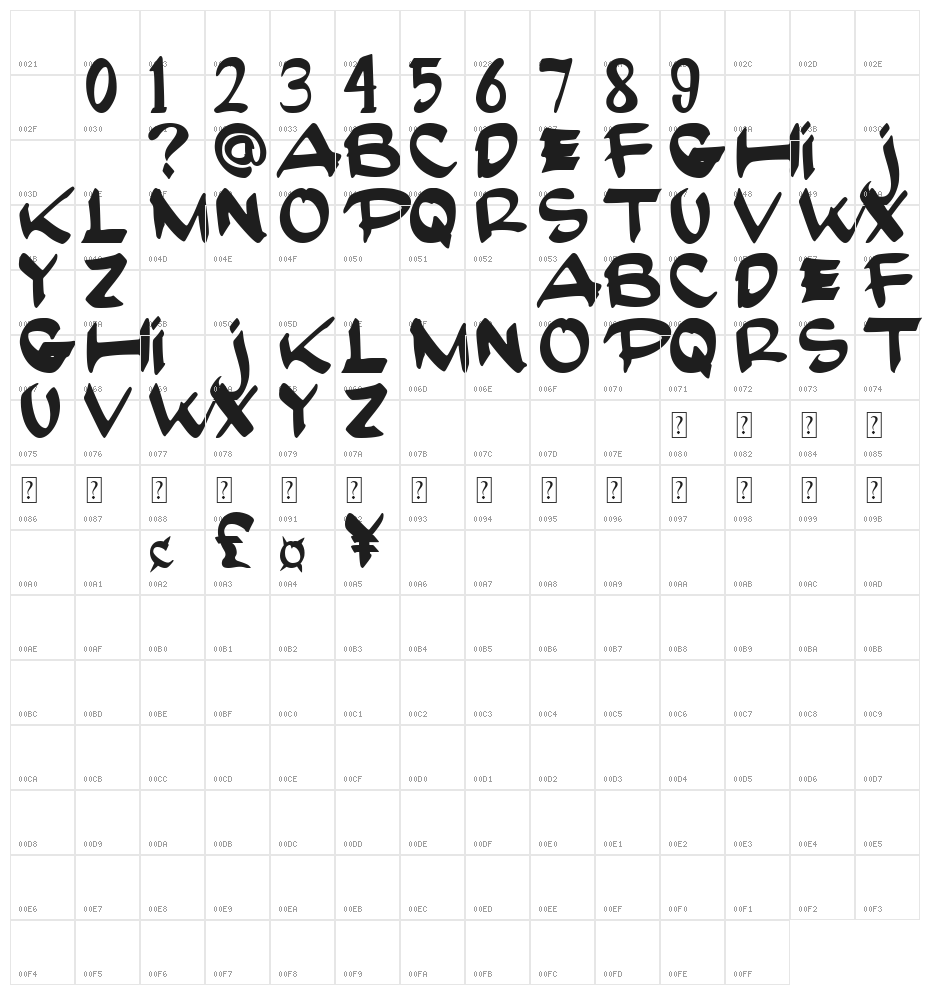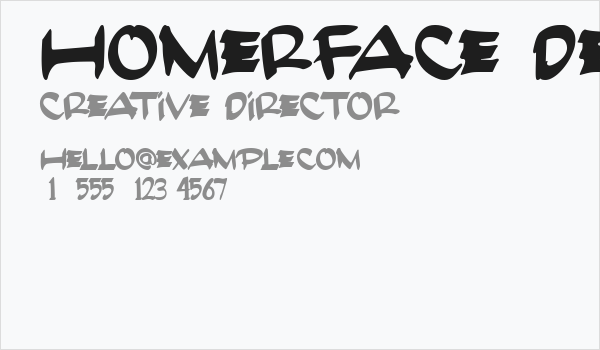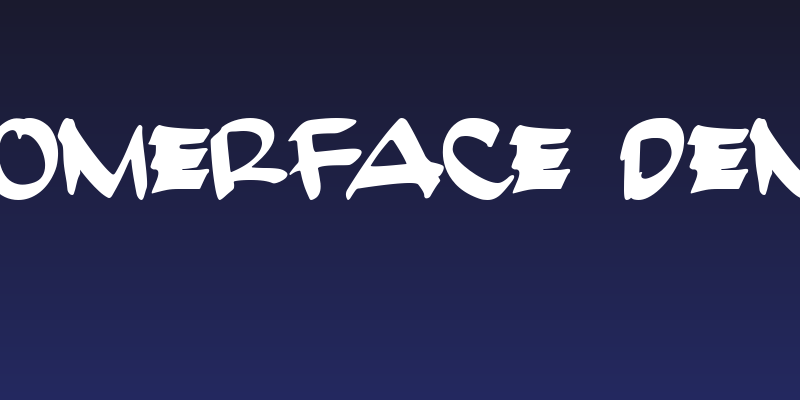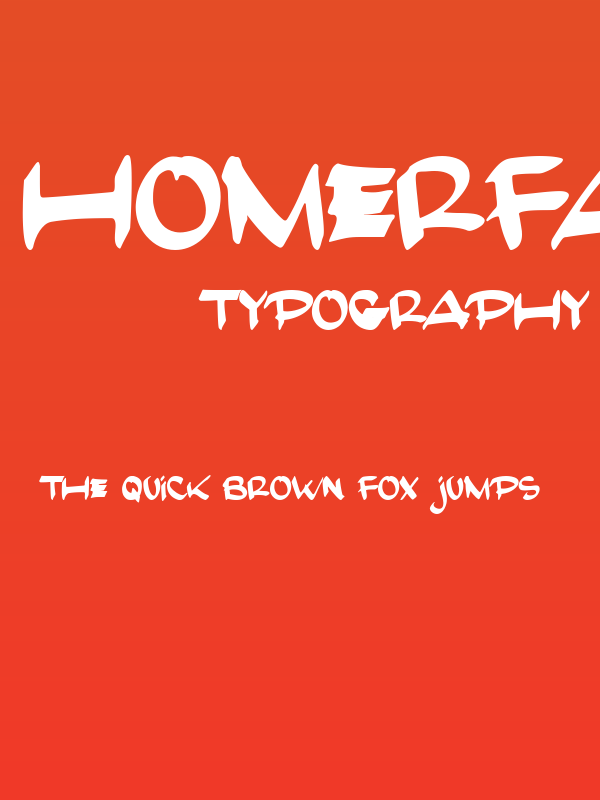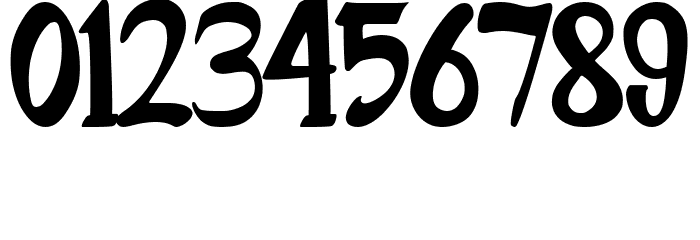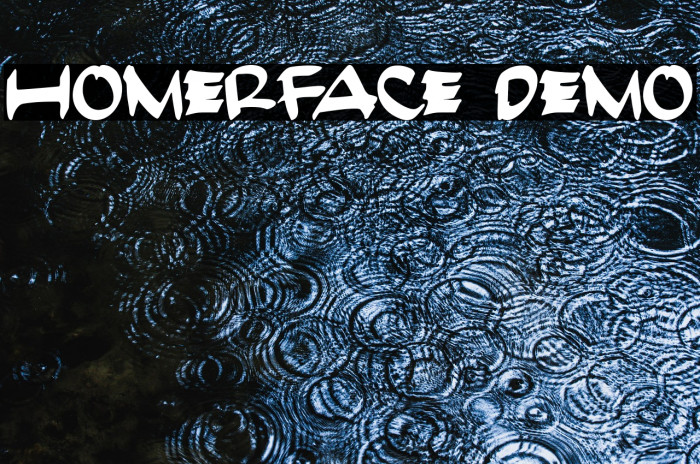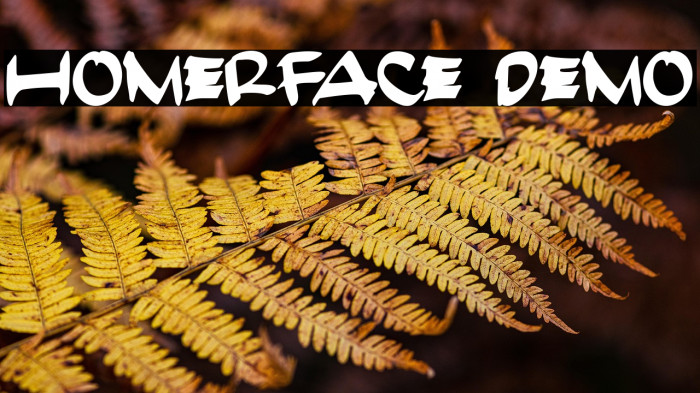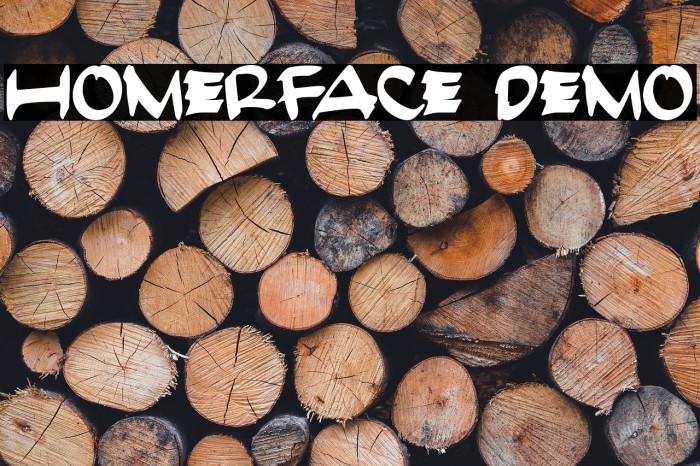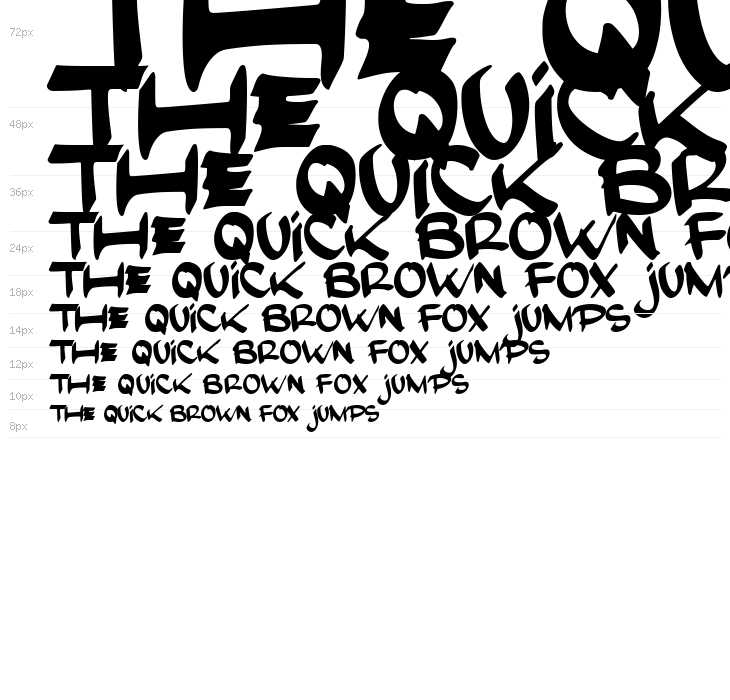
HomerFace Demo Font
HomerFace Demo Description
This font features a bold, dynamic style with a playful and energetic appearance. The characters are designed with a brush-like effect, giving them a hand-drawn feel. The uppercase letters are bold and striking, while the lowercase letters maintain a consistent style with a slightly more compact form. The numbers are equally bold, ensuring they stand out in any design. The overall look is both artistic and modern, making it suitable for creative projects. The font's unique style is characterized by its irregular strokes and varying thickness, adding to its distinctive and lively appearance.
| Proposed Projects | Ideal for posters, logos, branding, and any project requiring a creative and dynamic touch. |